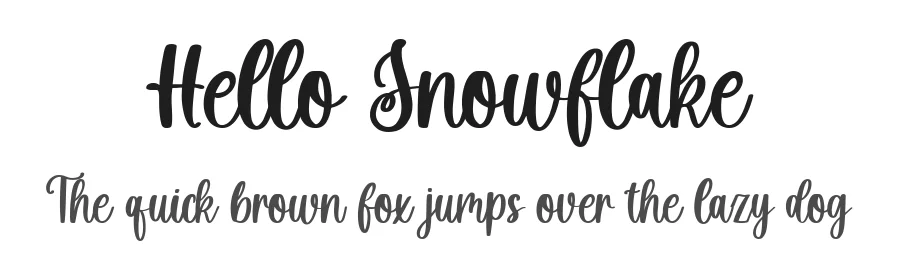
About Memories With You Font
| Font Family | Memories With You |
| Full Name | Memories With You |
| Glyph Count | 121 glyphs |
| PostScript Name | MemoriesWithYouRegular |
| Designer | Aldi Raya Pradipta |
Memories With You supports 198 languages.
Memories With You Font is a script font that shines as a display or heading face. Pair it with a clean sans-serif or serif font for body text β the contrast creates a clear hierarchy while the two styles stay balanced and easy to read.